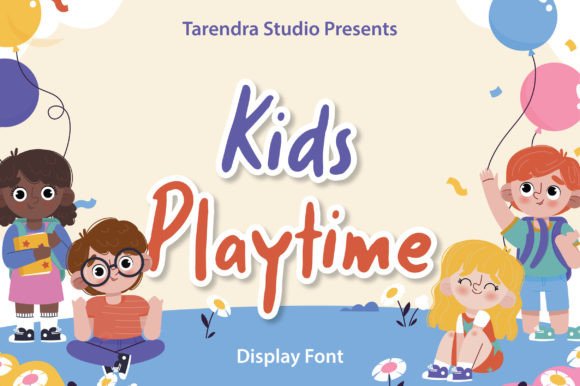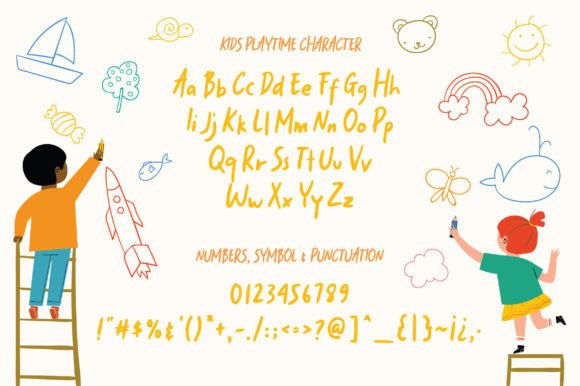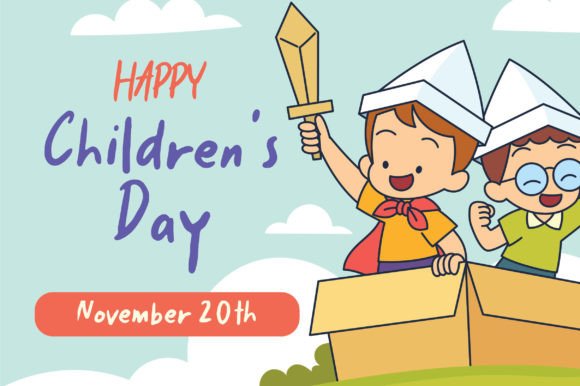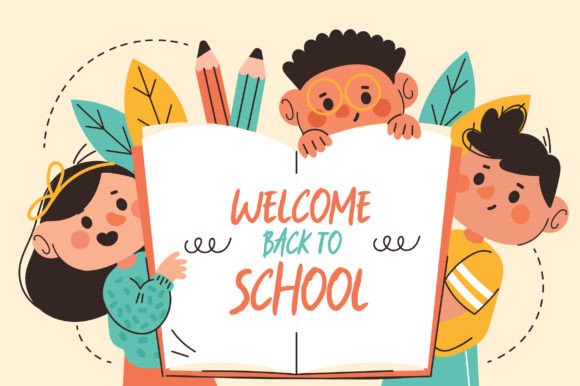
Kids Playtime Font
About the Kids Playtime Font
Introducing the Kids Playtime Font, a beautifully crafted typeface designed to elevate your creative projects. Kids Playtime is a fun display font. Playful and fresh, this font will be a hit for each of your children or school projects!
Its playful, rounded forms make it ideal for children’s book titles, playful branding for toys or educational products, and eye-catching posters for school events. It works exceptionally well in headlines and short, impactful text, adding a sense of fun and approachability. However, avoid using it for body text or lengthy paragraphs; its low x-height and informal style hinder readability in larger blocks of text.
Kids Playtime’s energetic personality pairs well with clean sans-serif fonts like Open Sans for body text, creating a balanced contrast between playful display and legible reading. Alternatively, a classic serif like Garamond can add a touch of sophistication, grounding the font’s youthful energy. For a more modern feel, consider pairing it with a geometric sans-serif such as Futura.
The font’s core personality is undeniably playful and friendly, conveying a sense of childhood wonder and excitement. Its rounded letterforms and slightly irregular spacing further contribute to this approachable and lighthearted aesthetic.
Kids Playtime Font Usage Examples
Kids Playtime Font Example